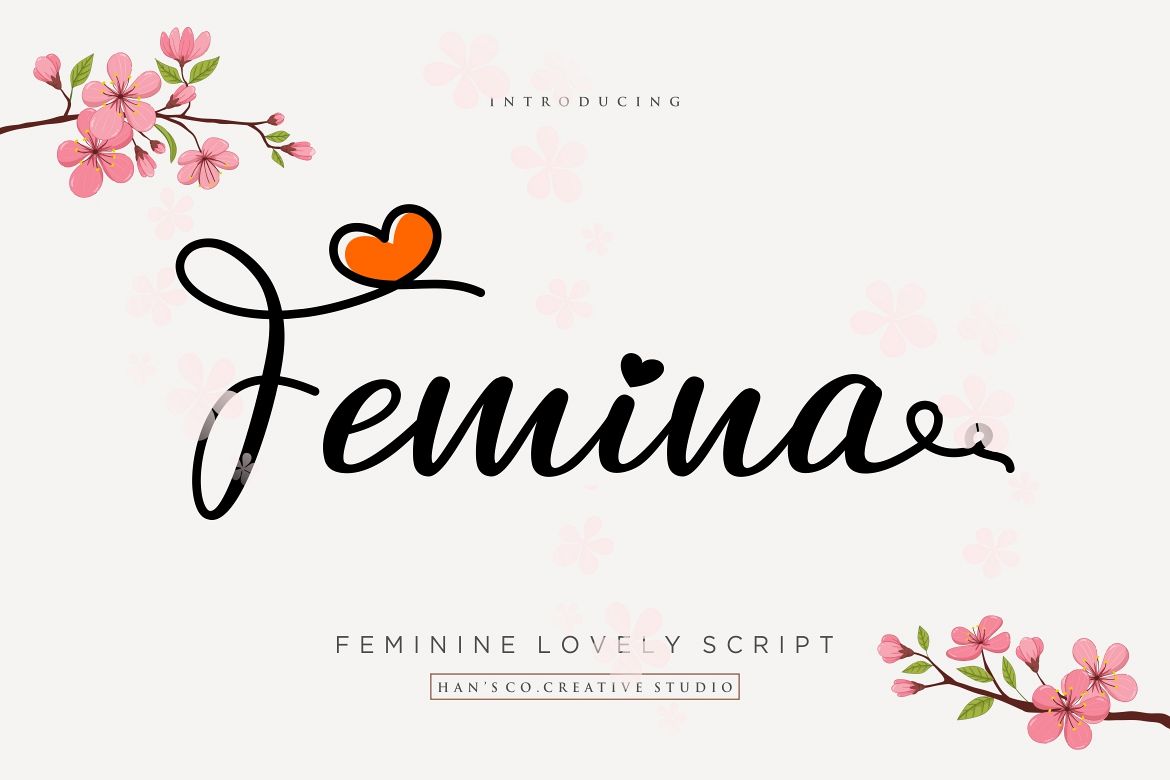
Femina Font
Femina is a fun and lovely script font with a curly and lovely tails. This collection of scripts is perfect for logo, gift products like a shirts or greeting cards and many more.